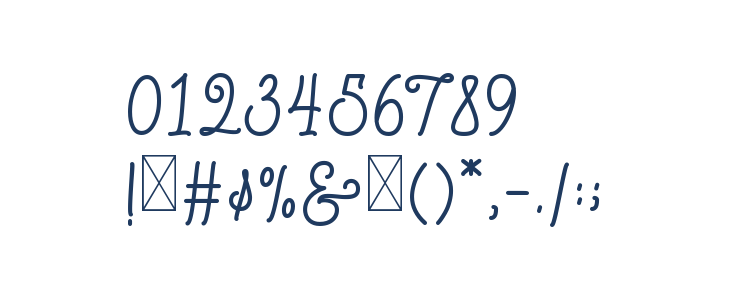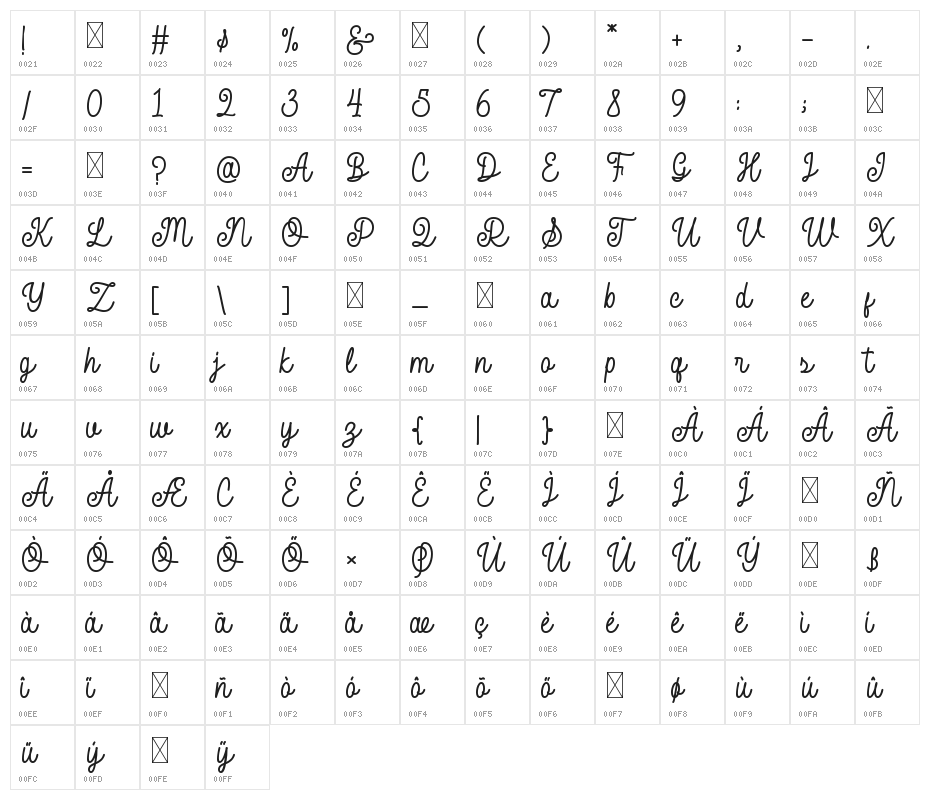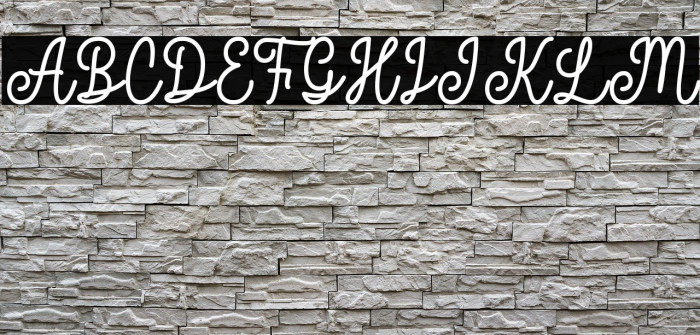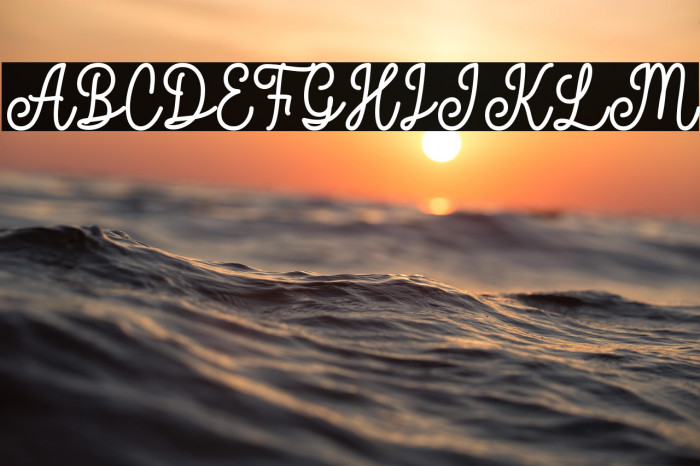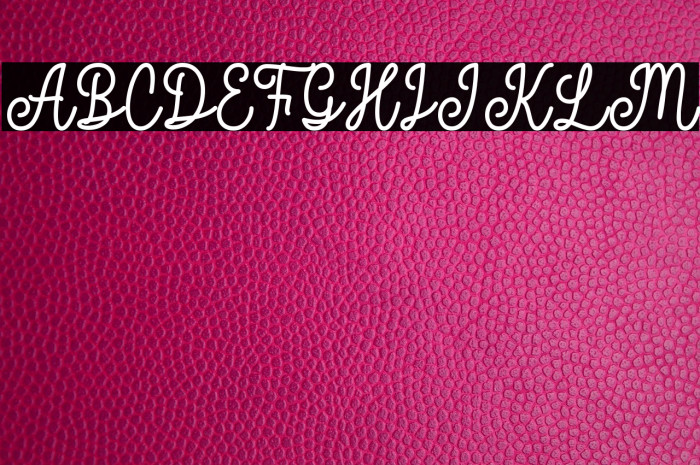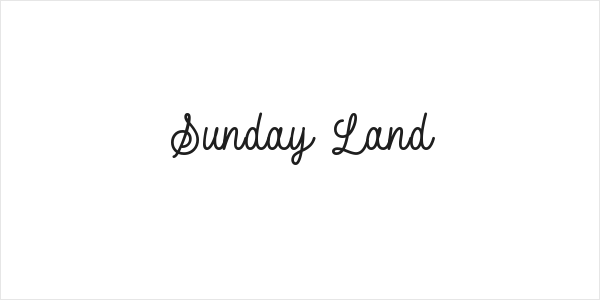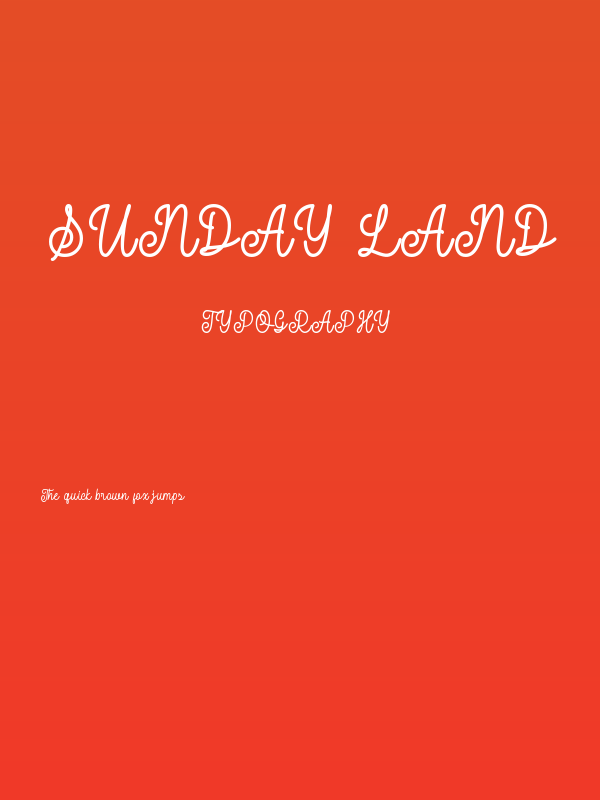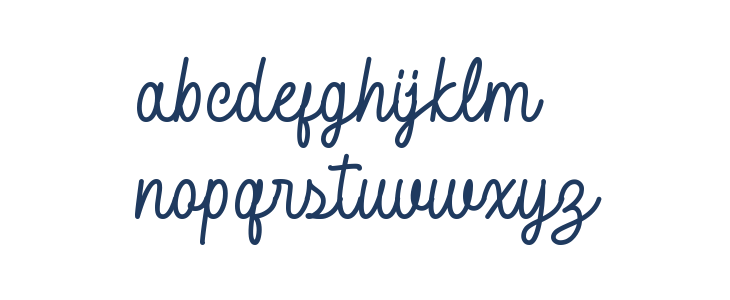
Sunday Land Font
Sunday Land Description
This font features a playful and elegant script style with a handwritten appearance. The letters are connected, creating a fluid and continuous flow that mimics natural handwriting. The uppercase letters are slightly more ornate, with loops and curls that add a touch of sophistication. The lowercase letters maintain a consistent height, providing a balanced look. Numbers and special characters are designed to match the overall style, ensuring a cohesive appearance across all text. The font's smooth curves and rounded edges contribute to its friendly and approachable feel, making it suitable for a variety of creative projects.